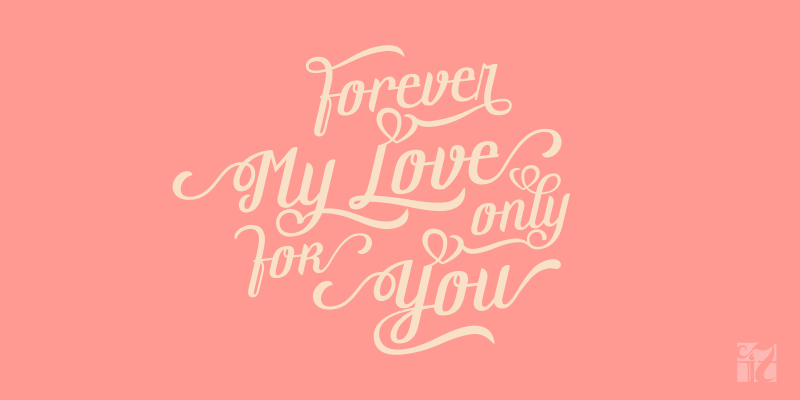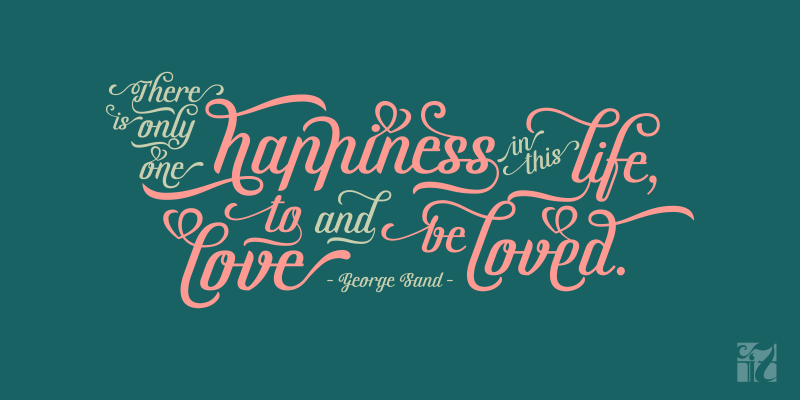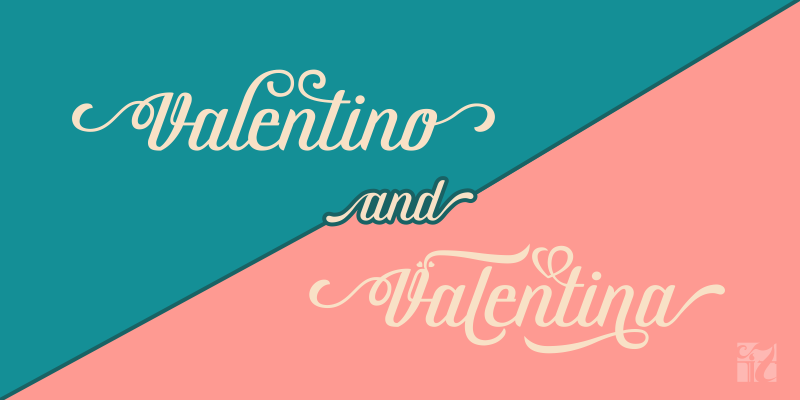
The Birth of a Timeless Beauty: Brotherina Font
We’ve all been there – staring at a blank page, waiting for inspiration to strike. For designers, it’s a moment of pure creativity, where the right font can make all the difference. It’s in these moments that we search for that perfect combination of elegance and sophistication to bring our vision to life.
Enter Brotherina Font, the stunning creation of Situjuh Nazara. This elegant font is more than just a pretty face – it’s a tool designed to elevate any design project. Whether you’re a seasoned pro or just starting out, Brotherina Font is the perfect addition to your toolkit.
What makes Brotherina Font so valuable to designers is its versatility and refinement. It’s the perfect choice for any project that requires a touch of sophistication, from wedding invitations to luxury brand identities. With Brotherina Font, the possibilities are endless, and your designs will never look better.
Brotherina Font Key Features
- Font Family: Brotherina Font is a unique, handwritten font family with a distinctive, cursive style.
- Character Count: The font family includes a wide range of characters, including uppercase and lowercase letters, numerals, punctuation, and special characters.
- Size: The font family is available in multiple font weights, ranging from light to bold, allowing for a wide range of design applications.
- Unique Characteristics: Brotherina Font features a mix of elegant and playful elements, making it suitable for various design projects, including invitations, branding, and packaging.
Brotherina Font Review
As a designer, I was excited to dive into the Brotherina Font and see what it had to offer. Overall, I found it to be a solid choice for body text and titles, but it had some quirks that made it less than perfect.
- Brotherina has a warm and inviting feel that makes it perfect for personal projects or branding.
- The font is highly legible, making it a great choice for long blocks of text.
- The font family is extensive, with a range of weights and styles to choose from.
- The font can feel a bit too playful and childlike at times, which may not be suitable for all projects.
- The letterforms can be a bit too rounded and soft, which can make it difficult to read at small sizes.
- The font family is not as comprehensive as some other fonts, with limited support for languages other than Latin.
Overall, I would recommend Brotherina for projects where you want a friendly and approachable feel. However, if you’re looking for a more professional or serious tone, you may want to consider another option. With a bit of tweaking and adjustment, Brotherina can be a great addition to your design toolkit.
Tips for Getting the Most Out of Brotherina Font
Use Brotherina Font for creative and playful designs, such as:
- Birthday invitations and party decorations
- Wedding invitations and wedding decorations
- Children’s books and educational materials
Experiment with different font sizes, colors, and styles to add a unique touch to your designs.